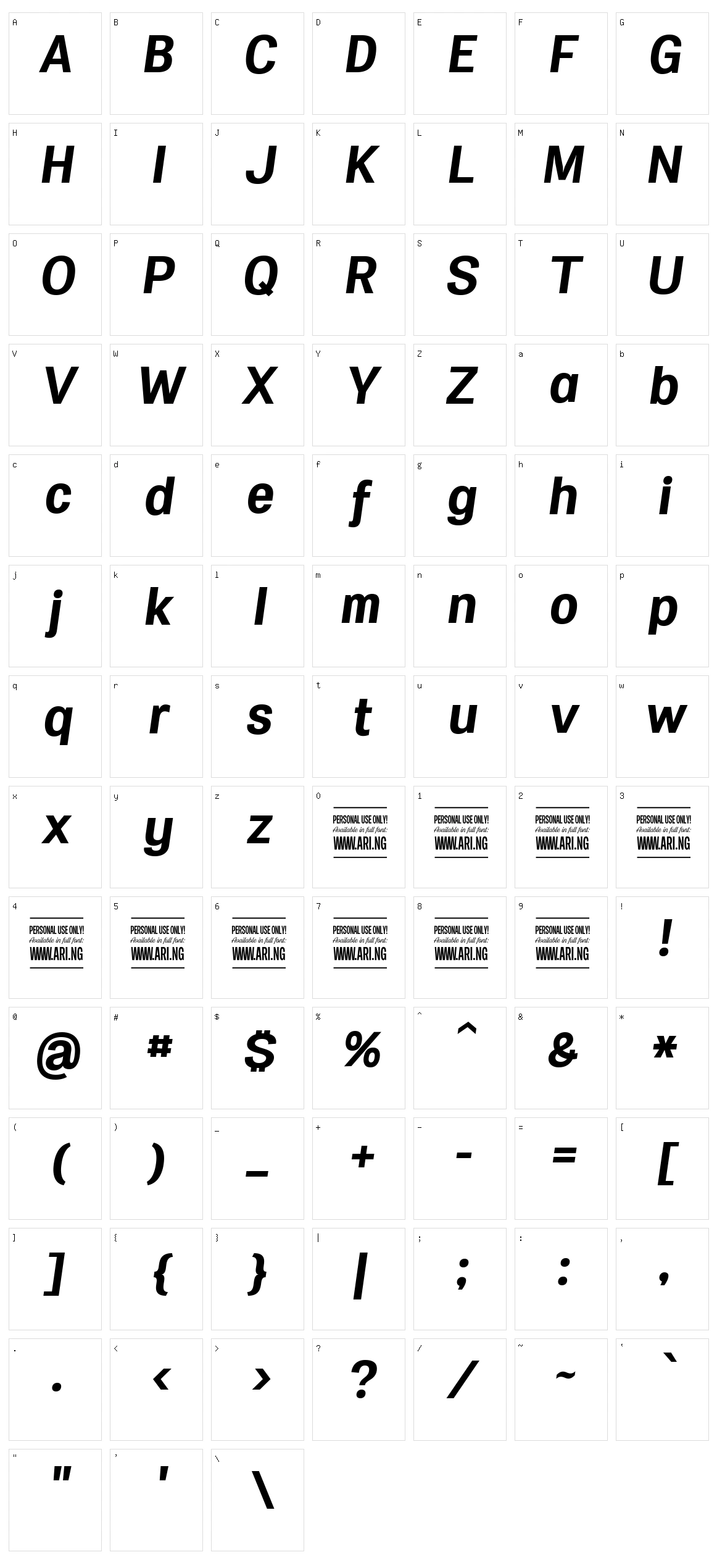
Specify is a sans-serif typeface with real variety.
Drawn with precision by Måns Grebäck, it brings brilliance and design to your graphic profile, while being calm and reliable.
Its 40 styles and support for all European languages guarantees that it will work in any context.
Try using the Black styles for headlines, the Thin and Light for logotypes, and the Medium and Bold weights for body text.
If you find the Normal width to be too timid, widen your words with the Expanded and Extraexpanded styles!
Or narrow your text down without leaving any information out with the condensed width.